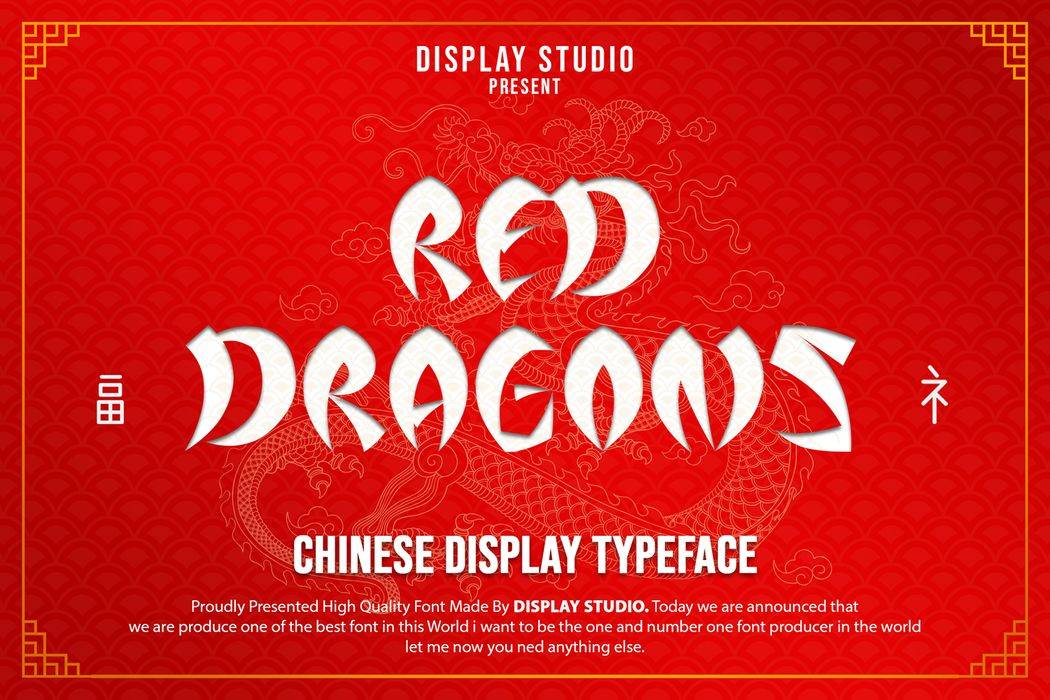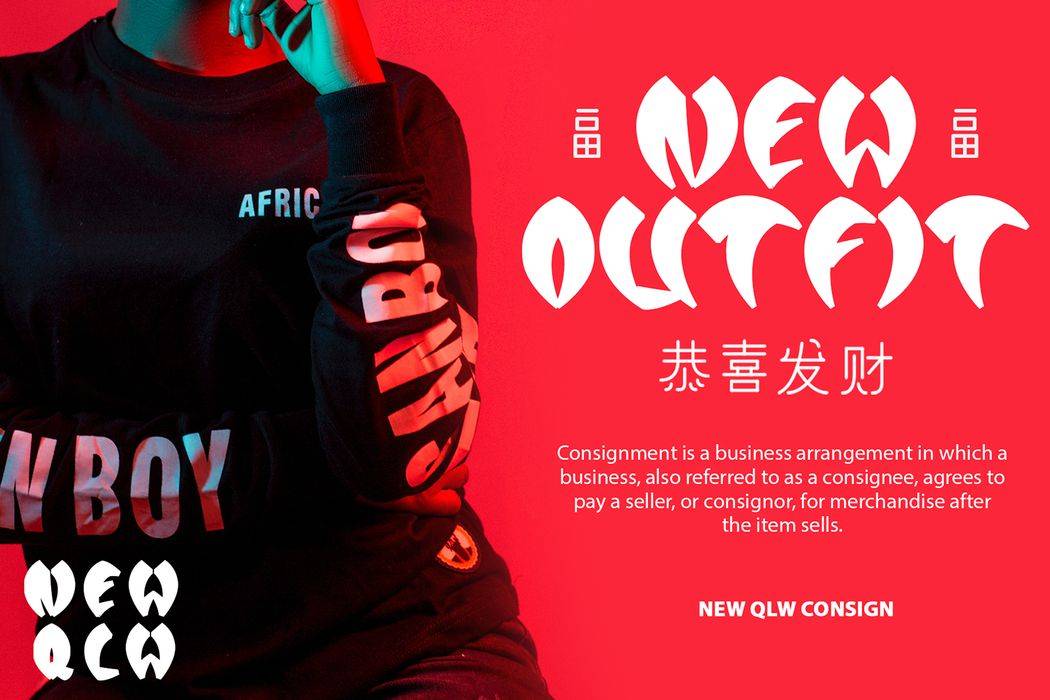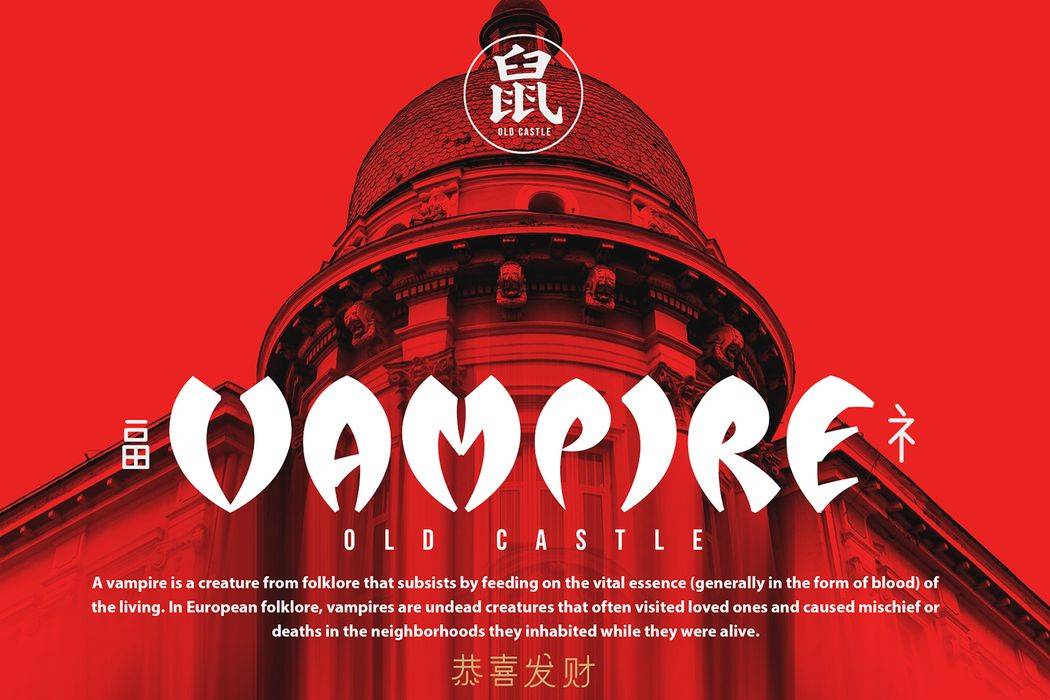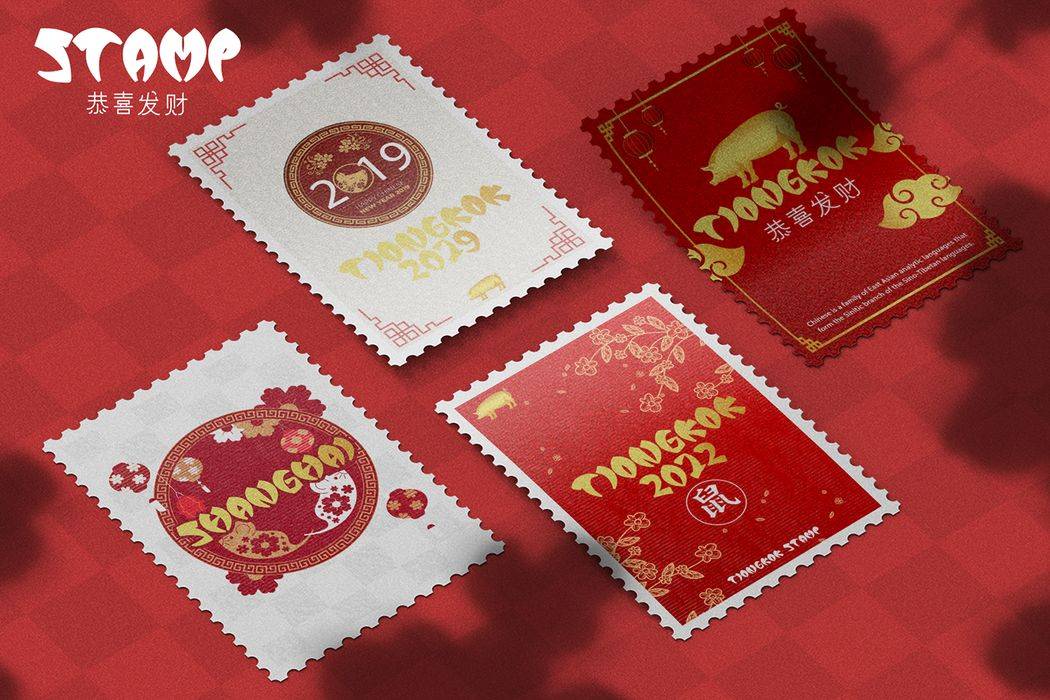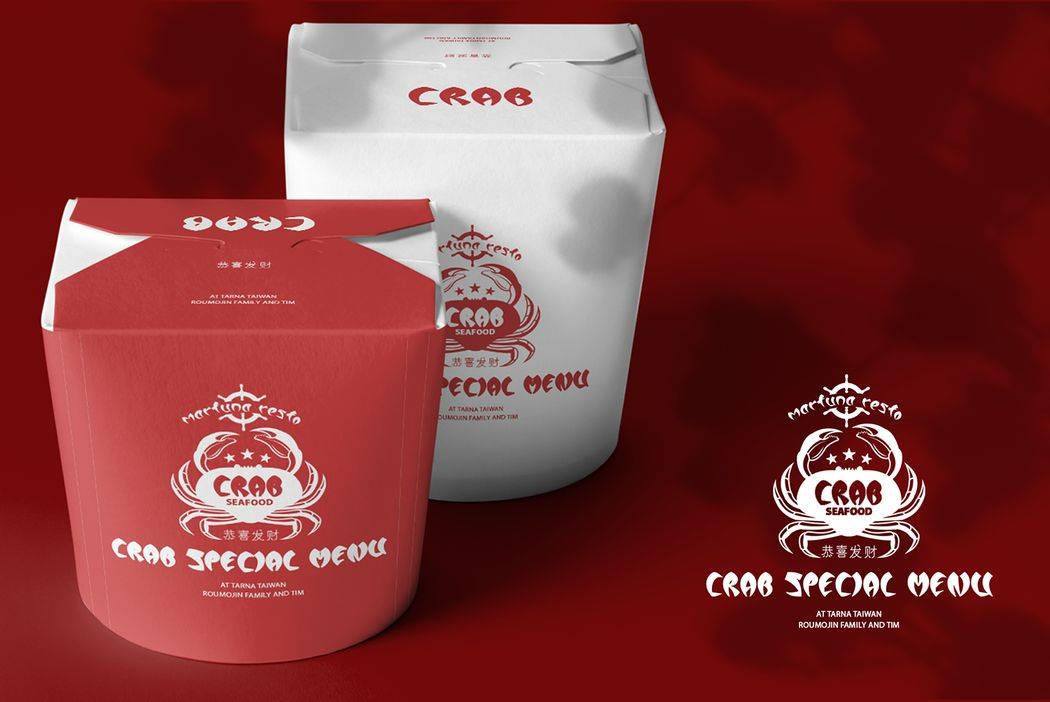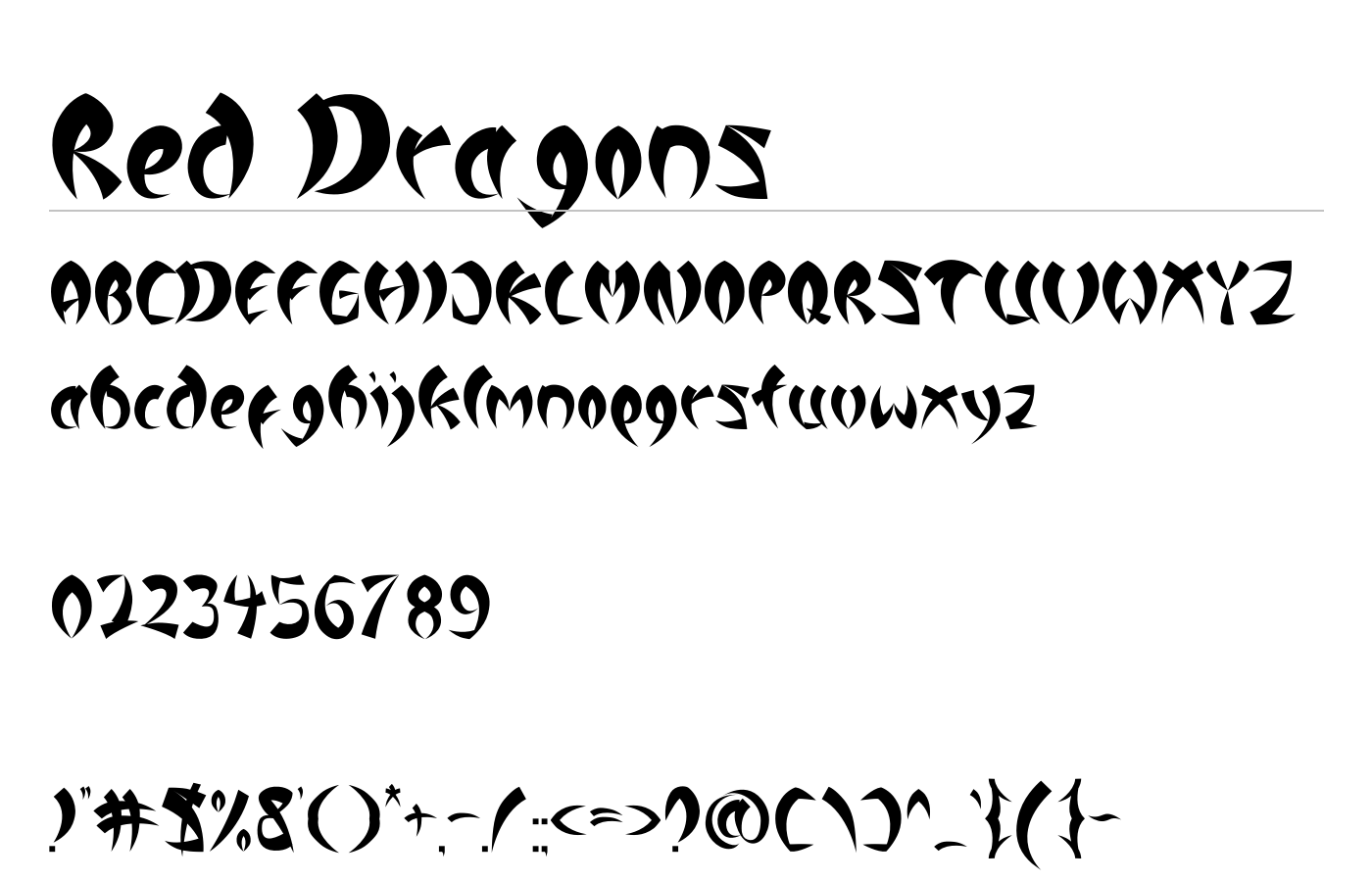
Red Dragons is a bold, decorative display font with sharp, angular shapes that evoke a fantasy or mythical atmosphere. Its unique, heavily stylized letterforms with pointed edges and dramatic curves make it ideal for eye-catching headlines or branding related to gaming, fantasy, or adventurous themes. This font stands out best in logos, posters, or any project seeking a strong, mysterious, and dynamic visual impact.
Red Dragons Font
About Red Dragons Font
| Font family | Red Dragons Font |
| Release date | 2020-08-10 |